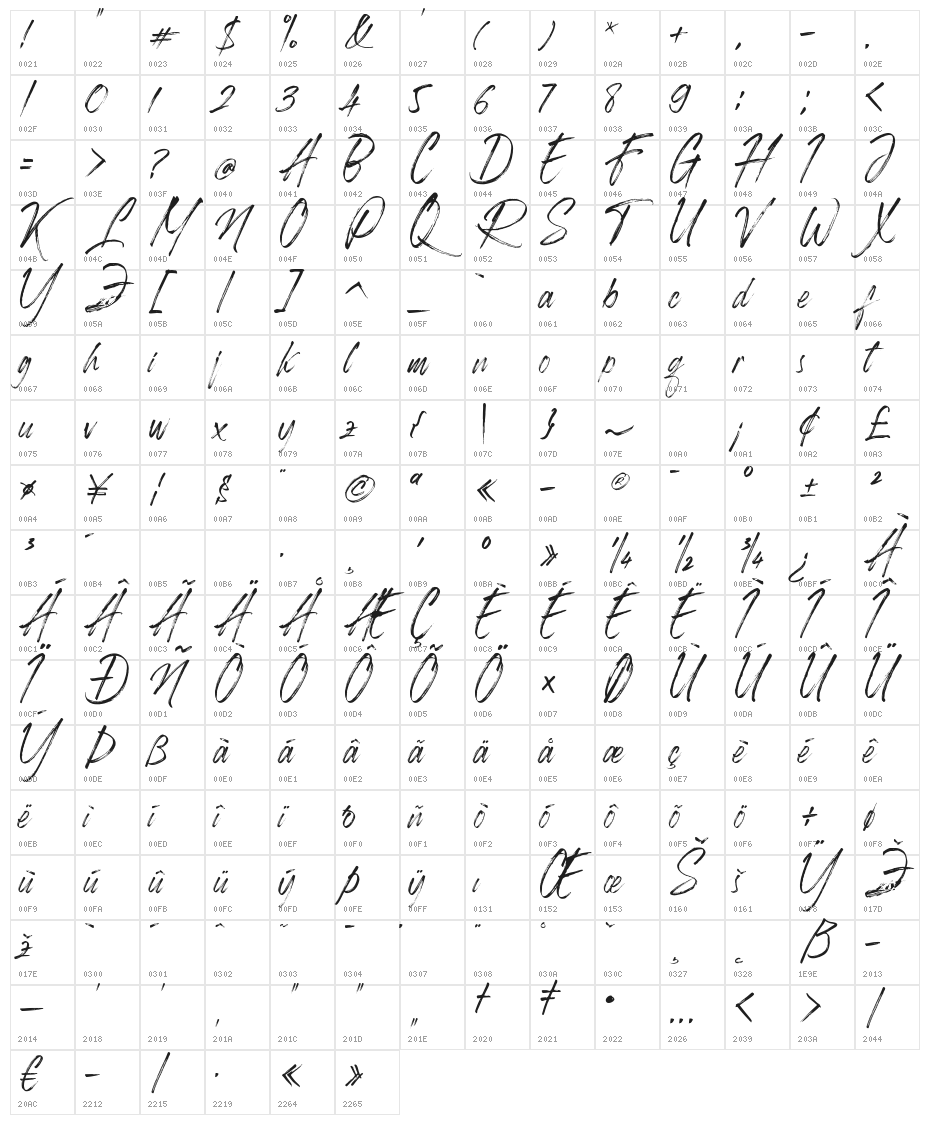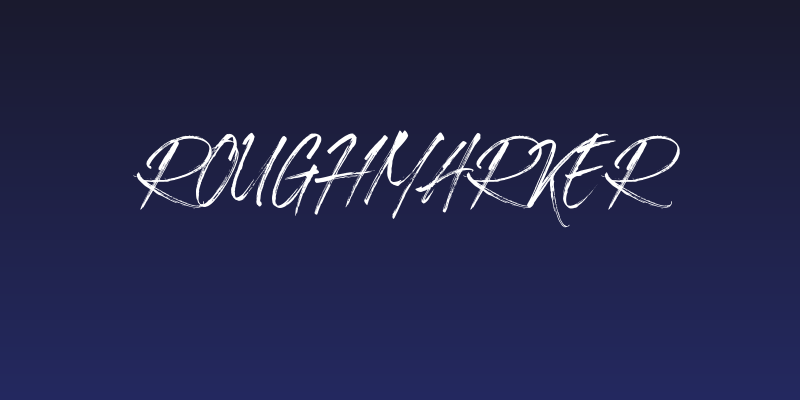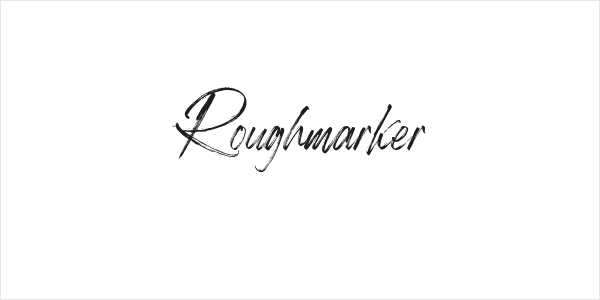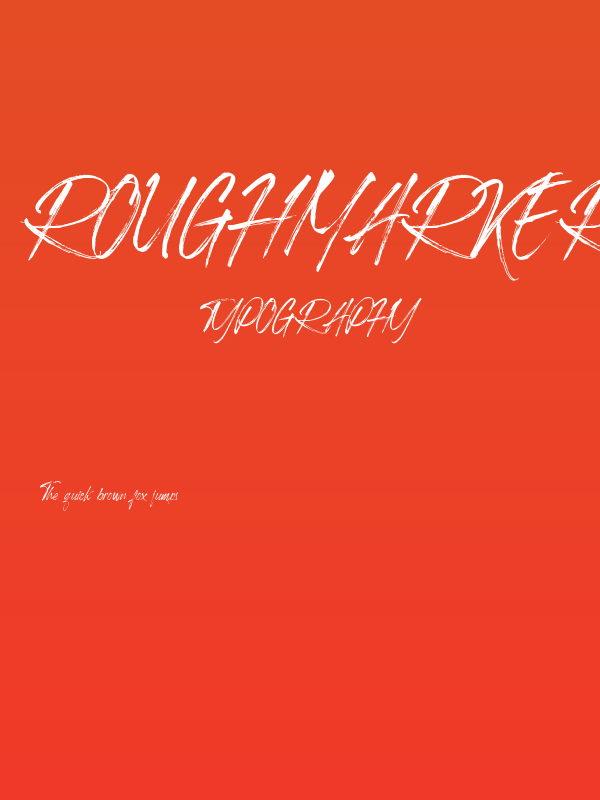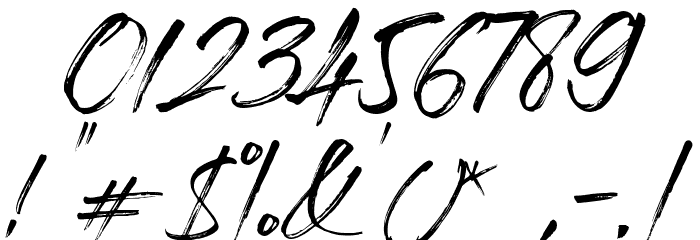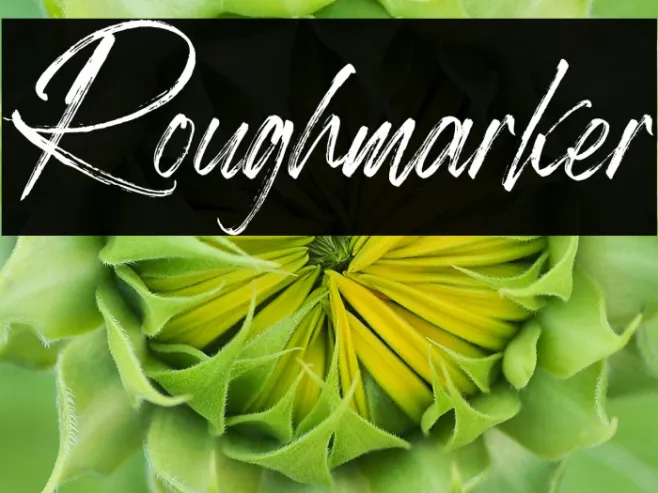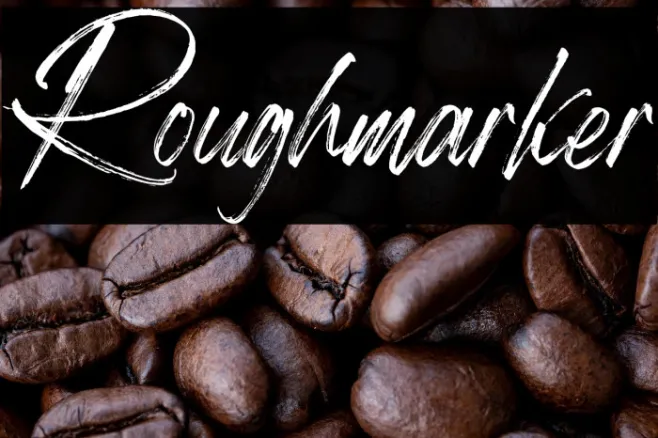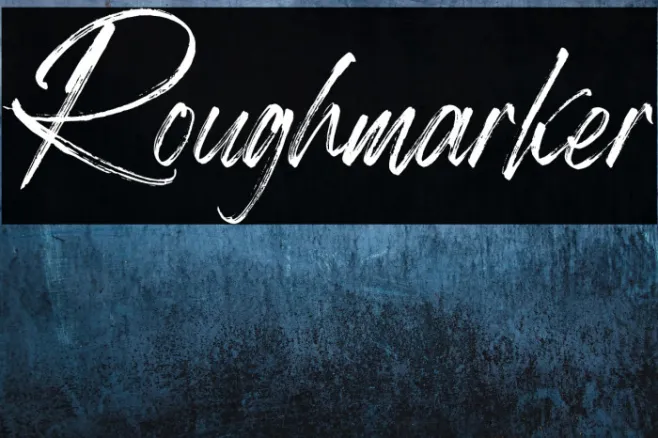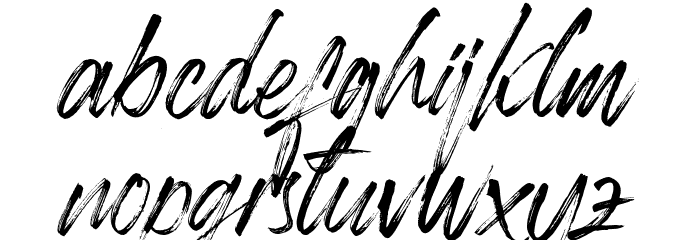
Roughmarker Font
Roughmarker Description
This font exudes a raw, expressive energy with its brush-like strokes and dynamic flow. Each character is crafted with a sense of movement, as if painted with a swift, confident hand. The uppercase letters are bold and commanding, while the lowercase letters maintain a fluidity that complements the overall style. Numbers and special characters are equally expressive, adding to the font's versatility. The texture of the strokes gives it a gritty, authentic feel, making it ideal for projects that require a touch of artistic flair.